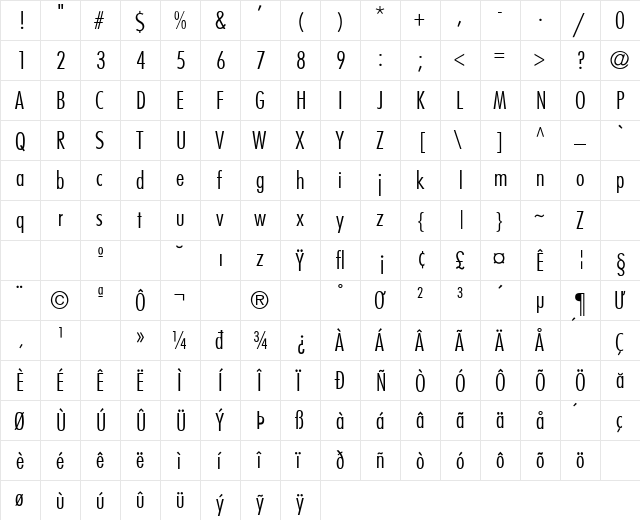
Fujiyama-LightCondensed Regular
Design Context for Fujiyama-LightCondensed Typeface
Fujiyama-LightCondensed is a composed and adaptable typeface that performs quietly and consistently across a wide range of design contexts. The delicate stroke weight brings airiness and refinement to layouts. Its narrow stance lets it pack a punch even in space-constrained designs.